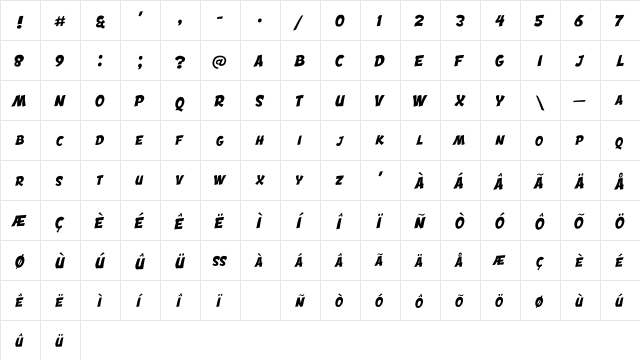
Engcomica Regular
Design Context for Engcomica Typeface
Engcomica has an approachable, lighthearted character — its loose, expressive forms are well-suited to children's content, casual branding, and fun-first design.
Font Pairing: Pairs well with a rounded or humanist sans for body copy, maintaining the friendly tone without relying on Engcomica to carry extended reading.
Pro Tip: Avoid using Engcomica for long passages of text — it works best for headlines, labels, and short calls to action.